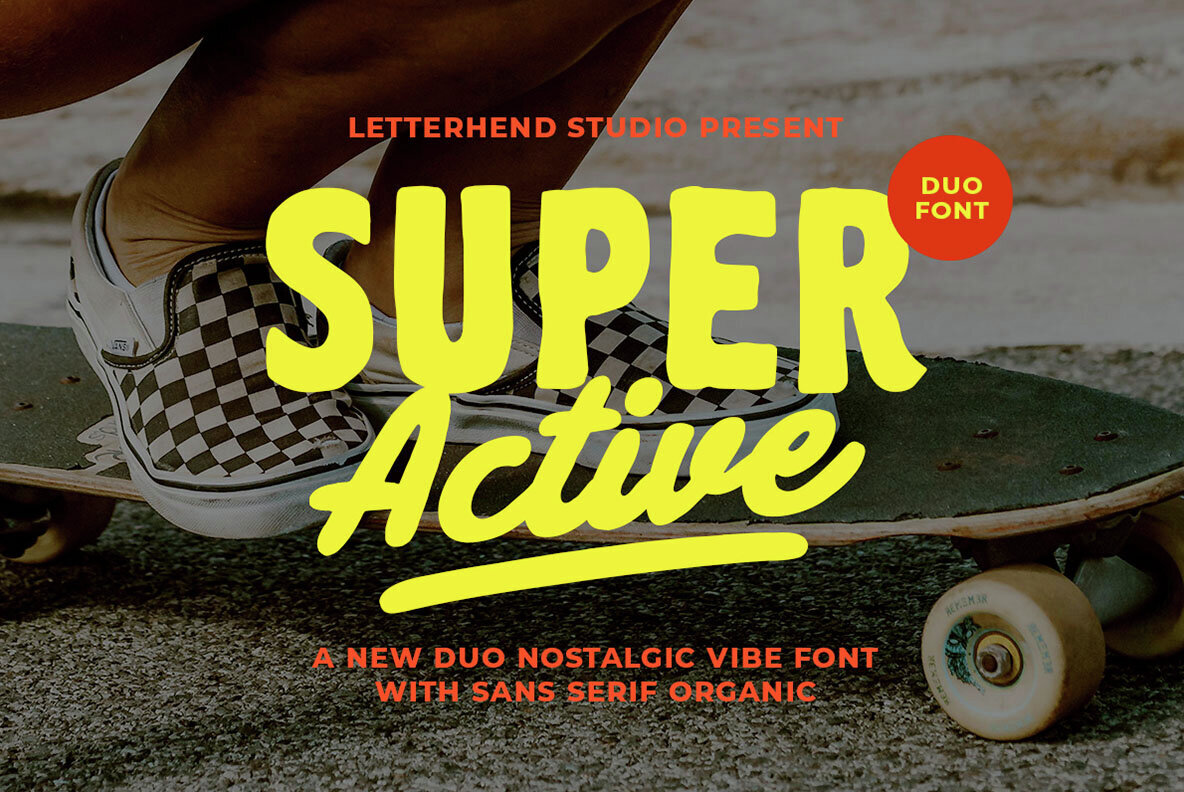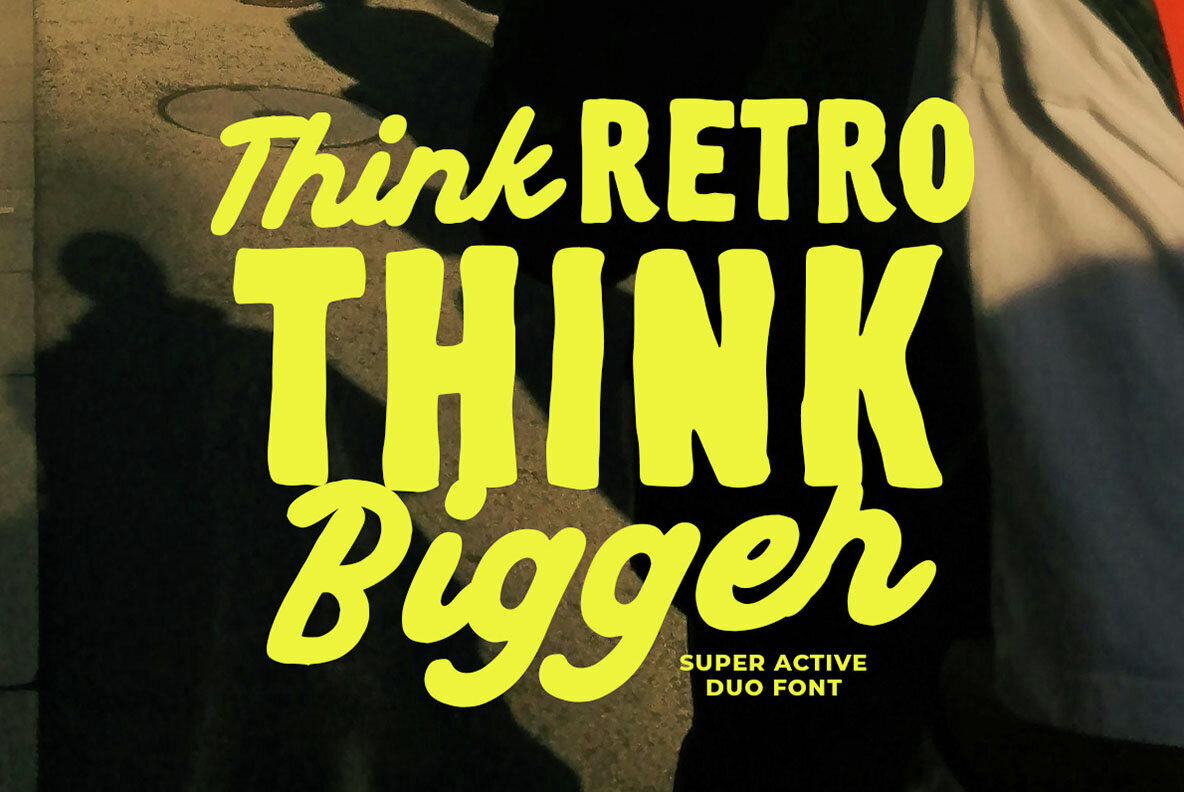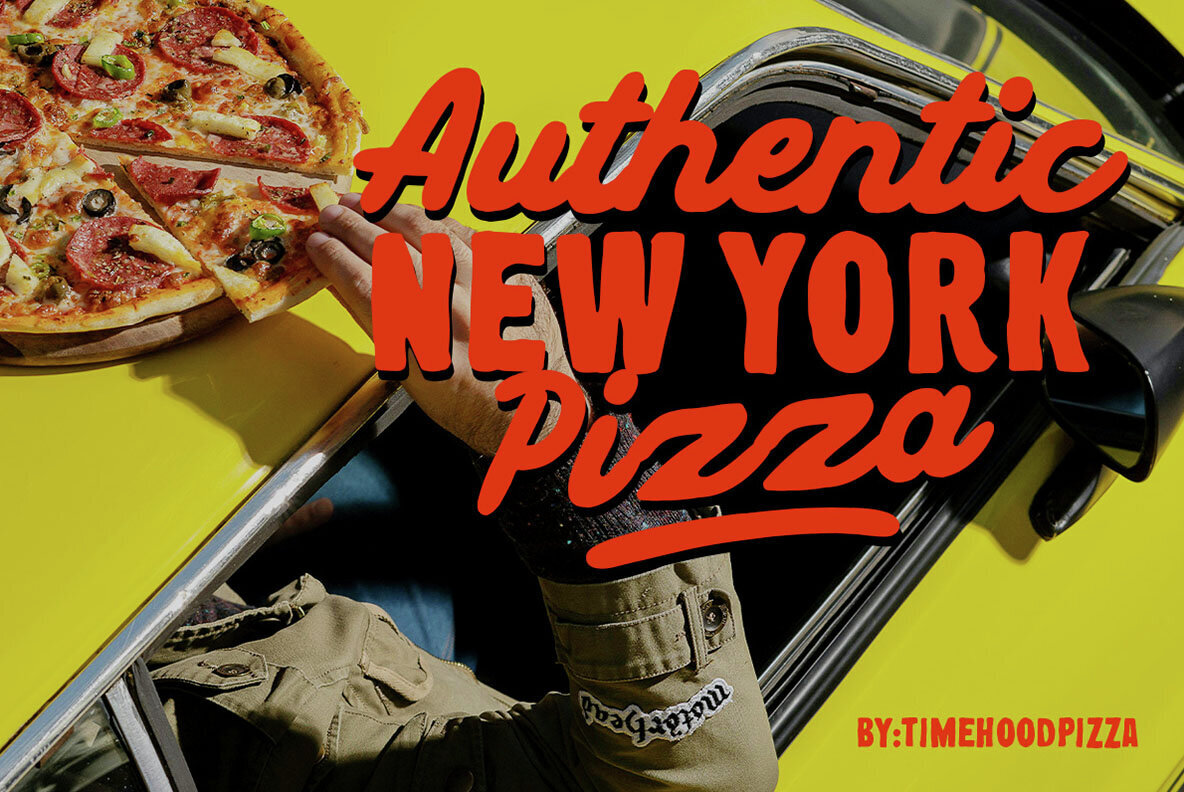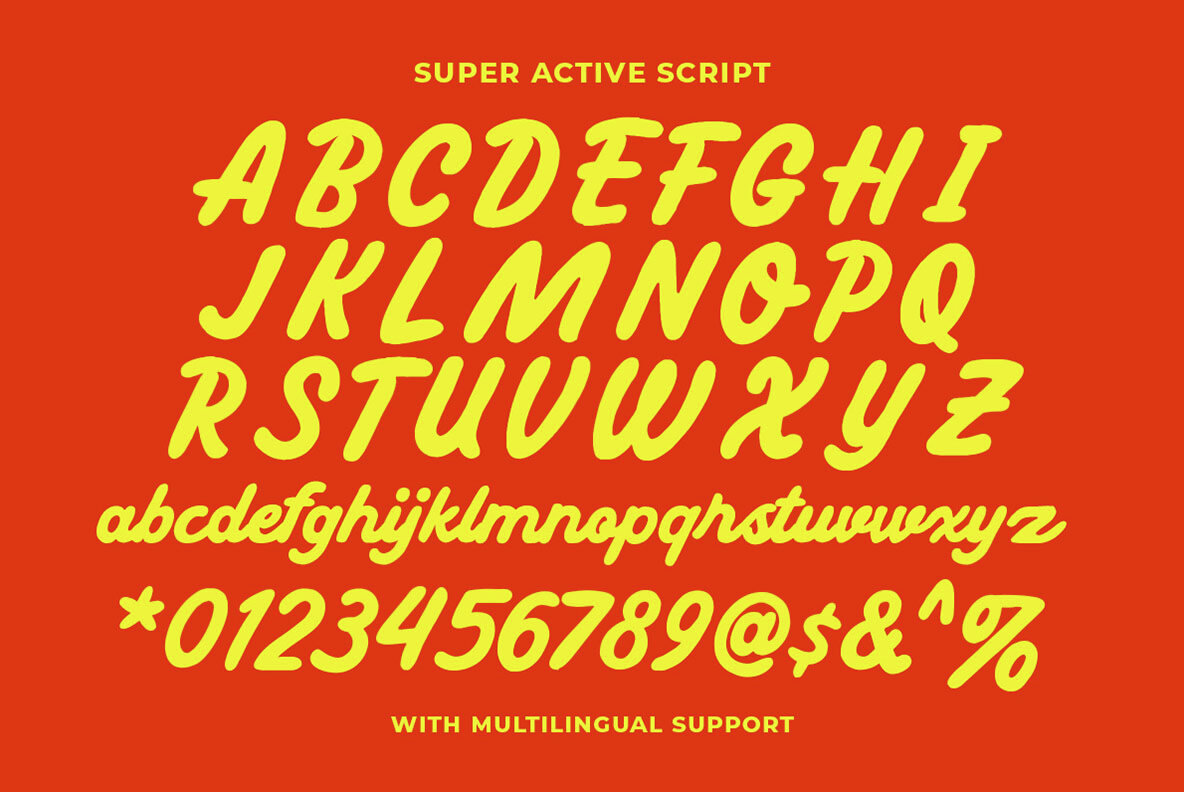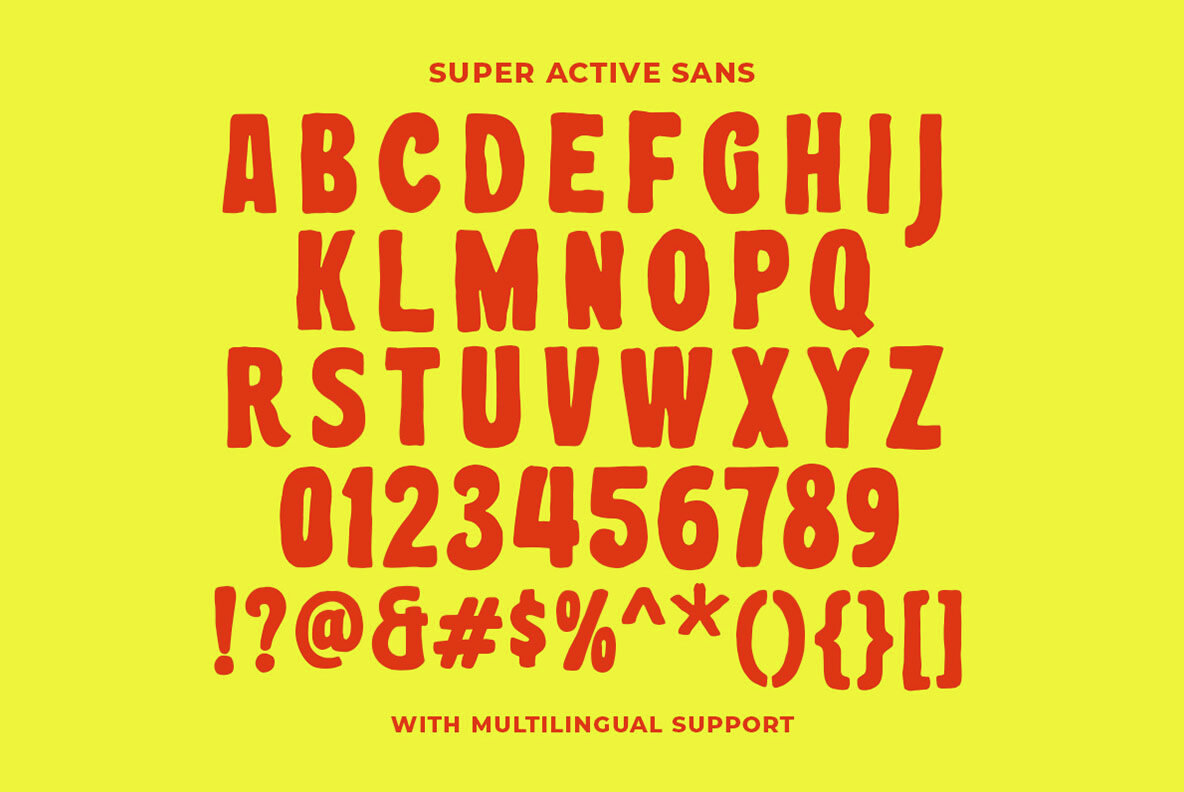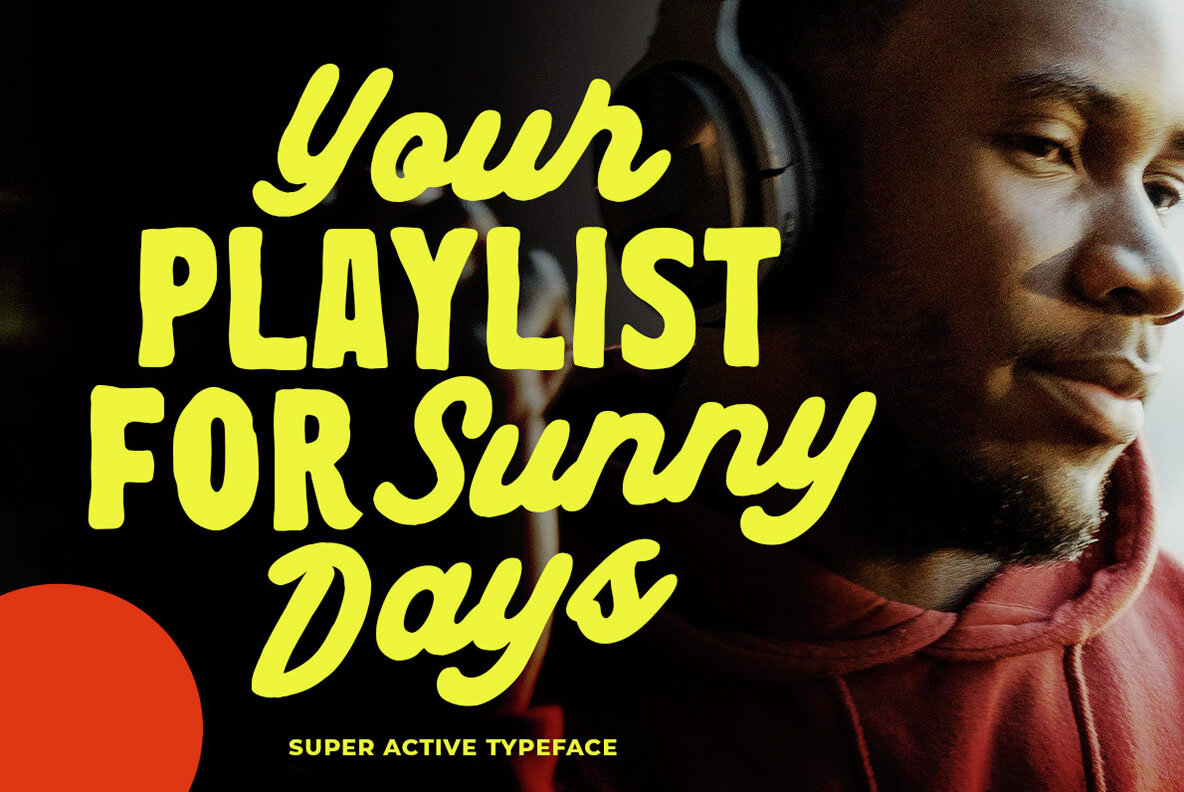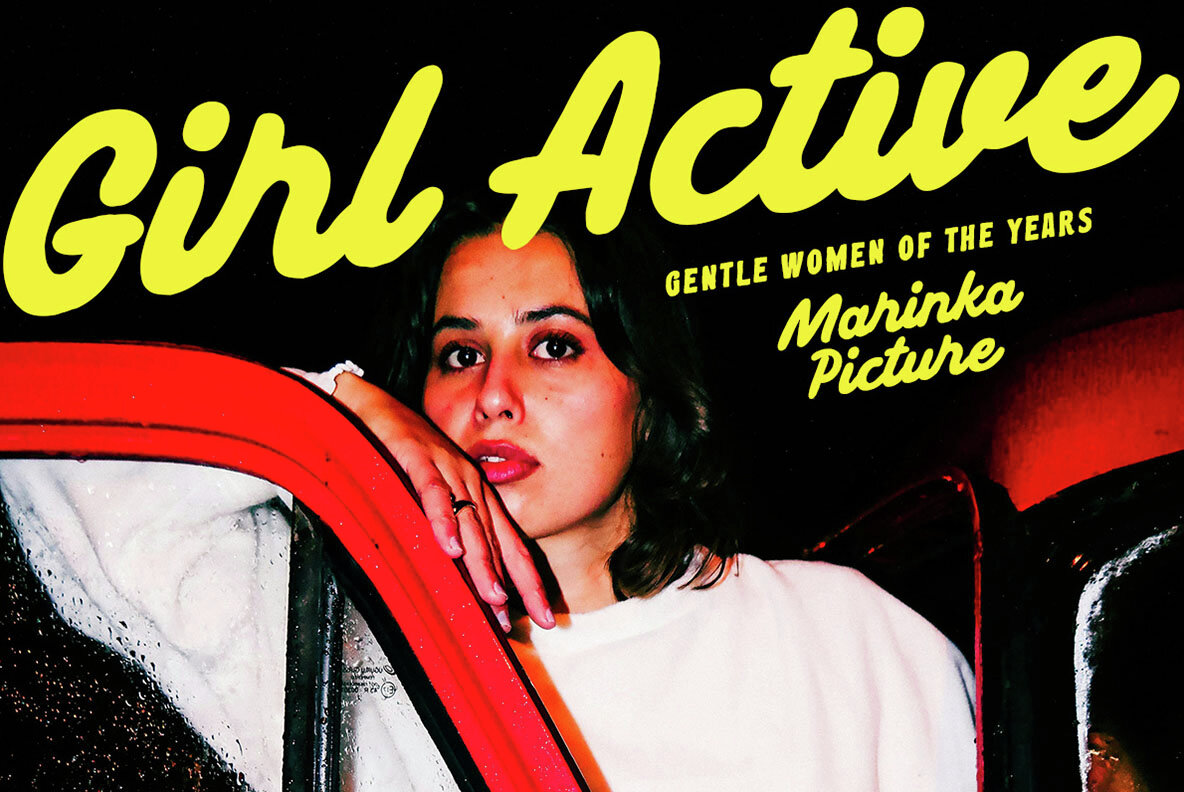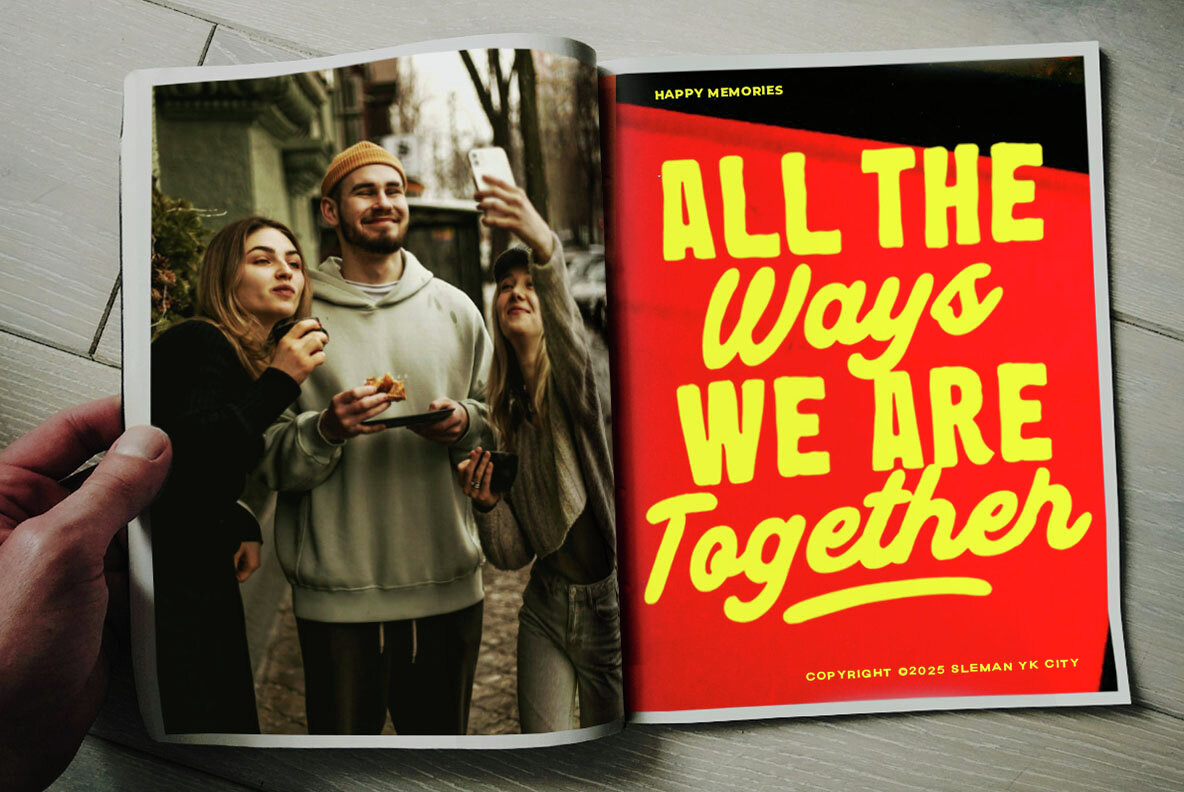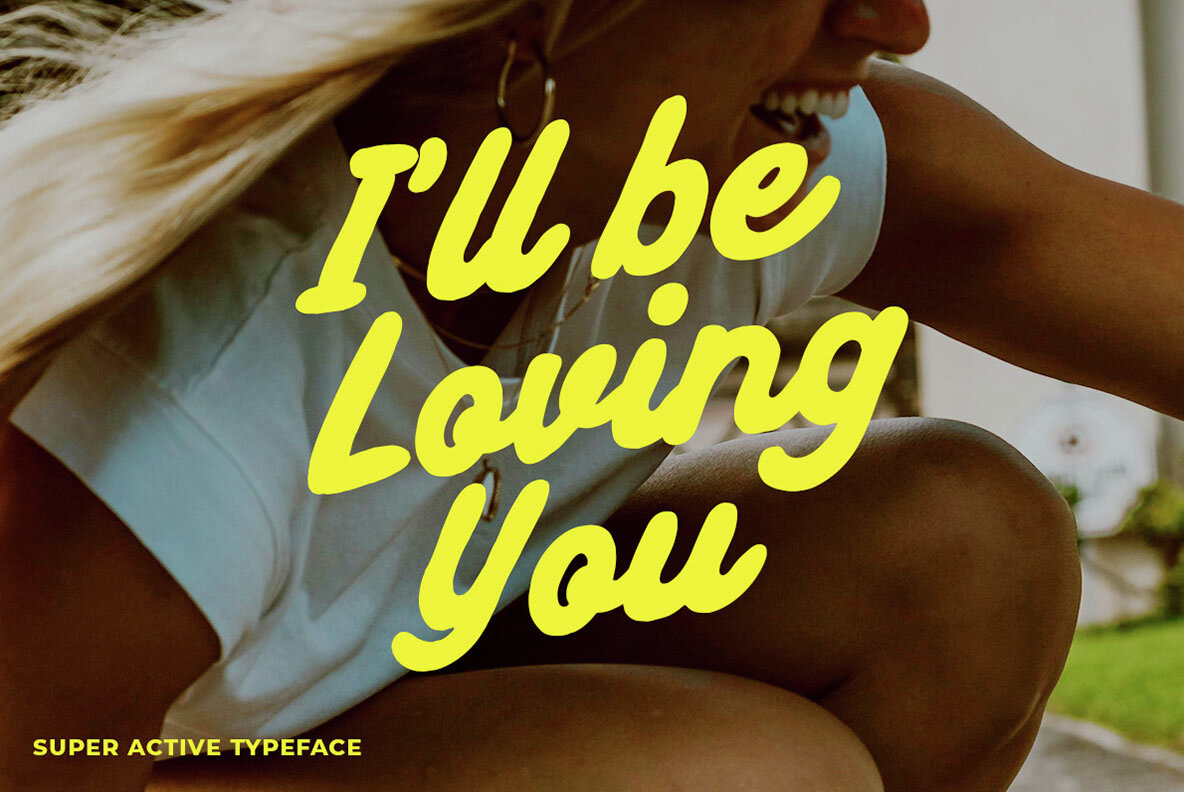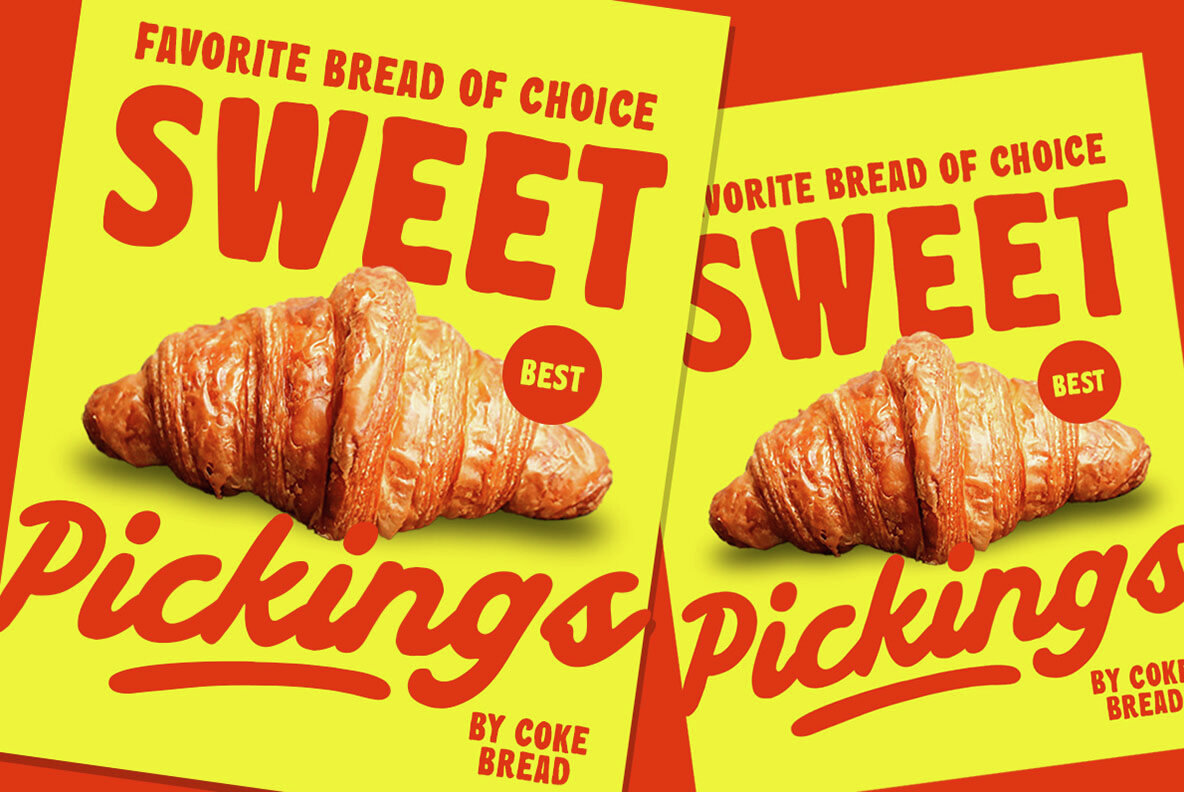
Super Active Font
Super Active Sans
Super Active Script
Super Active captures the essence of playful nostalgia, offering a vibrant duo of organic sans serif and dynamic script fonts. This lively combination is ideal for branding, posters, apparel, and social media graphics, infusing a sporty, retro-modern aesthetic into every project. With its youthful energy, Super Active adds a cheerful character to your creative work. For the best experience, consider using software that supports OpenType features and Glyph panels, such as Adobe applications and Corel Draw, to unlock all available Glyph variations.Super Active: Energetic Duo Font for Vibrant Designs